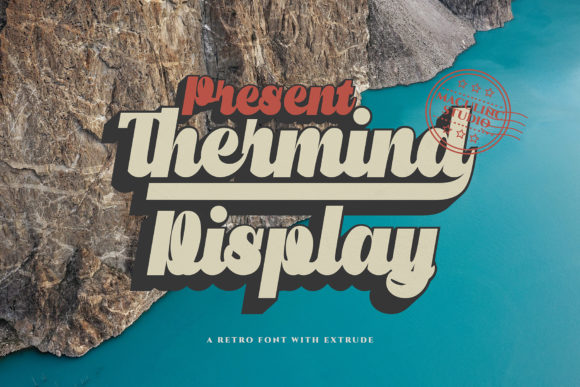
Unleash the captivating charm of Thermind Display, a display font family that's utterly breathtaking. Imagine the elegance of a bygone era with its distinctive angular features and a hint of retro flair that exudes nostalgia. With Thermind Display, your creations will ignite a flame of uniqueness, expressing your individuality like never before.
Envision the enchantment of a wedding card adorned with Thermind Display's flowing characters. Its graceful strokes will tell a tale of love and commitment, carrying the essence of your special day with unparalleled beauty. Design invitations that capture the essence of devotion, RSVP cards that whisper anticipation, and wedding programs that orchestrate the day's unfolding with sophisticated allure.
Thermind Display's versatility knows no bounds. Its adaptability extends beyond the realm of matrimony, embracing an array of creative endeavors. Its bold presence commands attention in logos and branding, conveying strength and stability. Harness its energy to create posters that demand a second glance, flyers that ignite curiosity, and social media posts that spark engagement.
Immerse yourself in the allure of Thermind Display, where imagination flourishes, and creativity takes center stage. Let its beauty ignite your artistic spirit and elevate your designs to new heights. Embrace the allure of Thermind Display, and let your creations captivate the world.